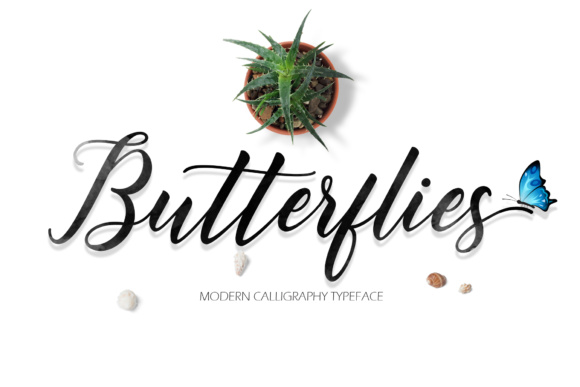
Welcome to the enchanting realm of the Butterflies Script Font - a masterpiece of digital calligraphy that will transform your creative visions into works of art. Allow the Butterflies Script to guide your writing, whether for heartfelt letters, elegant invitations, or social media posts that shimmer with an ethereal glow.
This charismatic script font will lend an air of effortless grace to your words, evoking the delicate flutter of butterflies' wings. Its intricate flourishes and playful baseline dance across the page, infusing your creations with a captivating energy that will leave a lasting impression.
Elevate your designs with the Butterflies Script, a font that speaks to the heart with its subtle charm. Its curves and swirls entwine like a graceful ballet, evoking a sense of whimsy and pure delight. Experience the magic of the Butterflies Script, and watch your words take flight!
Crafted by the talented artisans at fargunstudio, the Butterflies Script is a testament to the enduring power of human creativity. Its unique style and vibrant personality will light up your designs, transforming ordinary words into radiant masterpieces.
Embrace the expressive beauty of the Butterflies Script, where every letter is a work of art, brimming with emotion and personality. Unleash your imagination and watch as your words dance across the page, captivating all who behold them.